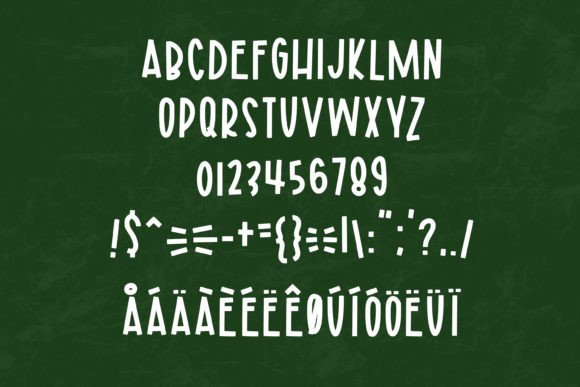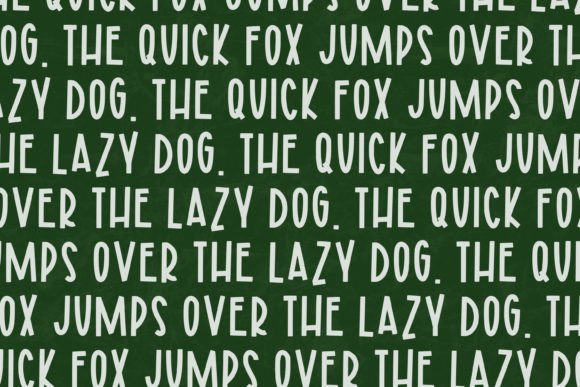
Introduction to Evergreen Berries Font
Say hello to Evergreen Berries, a playful yet modern font that brings the spirit of the forest to your designs.
With its tall, handcrafted letters, it adds a whimsical touch to titles, branding, and seasonal projects Whether youโre designing for the holidays or looking to capture a rustic feel, this font will deliver warmth and charm to any creative venture.
Key Features of Evergreen Berries Font
Why Choose Evergreen Berries Font?
Evergreen Berries Font offers exceptional quality and versatility, making it a valuable addition to your design toolkit. Whether you’re creating for personal projects or commercial use, Evergreen Berries Font delivers professional results.